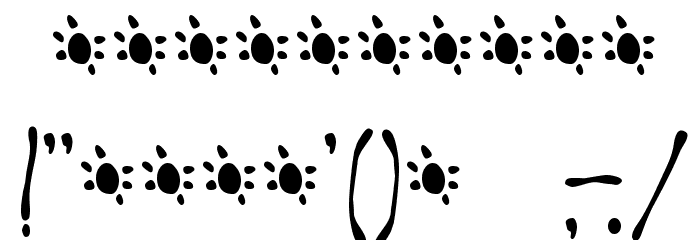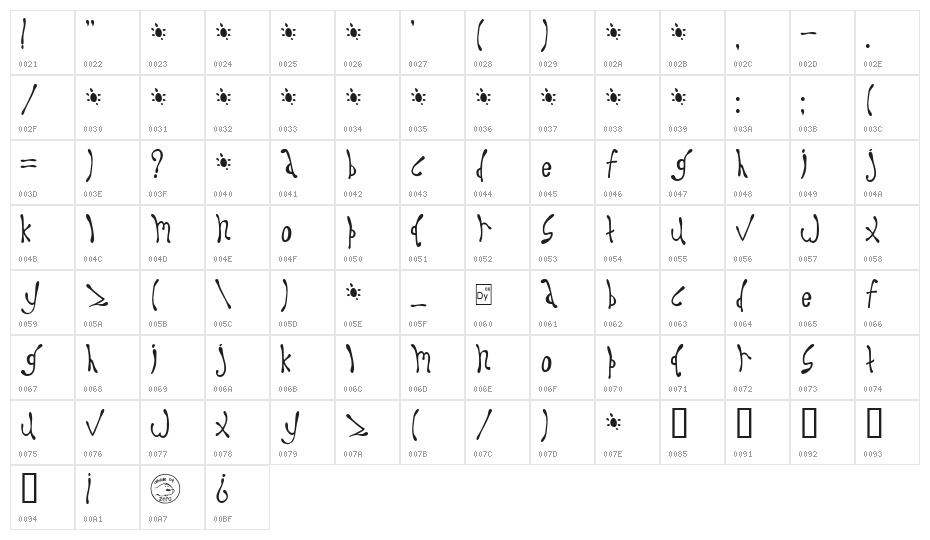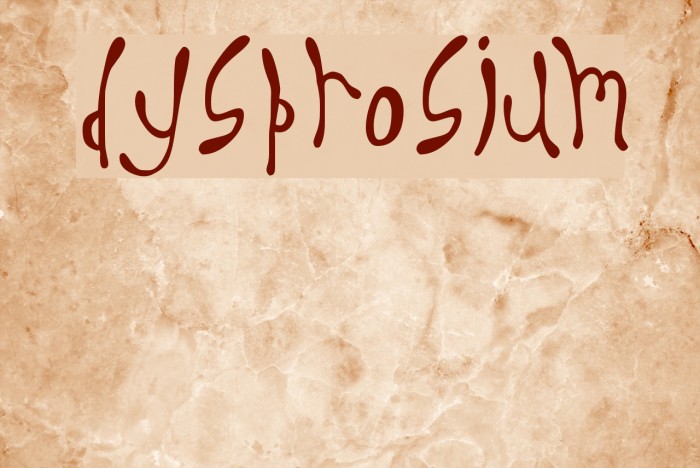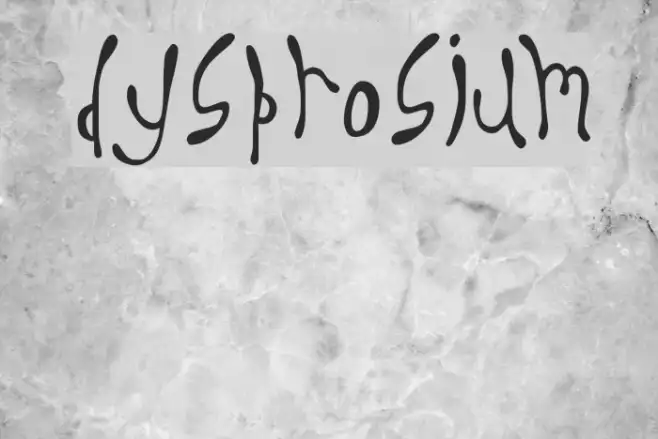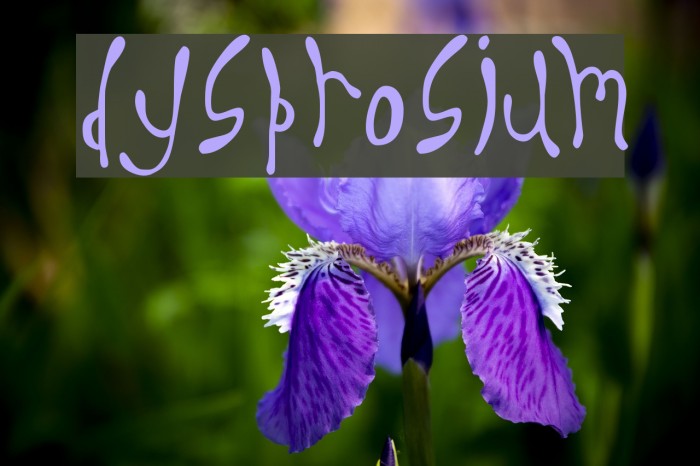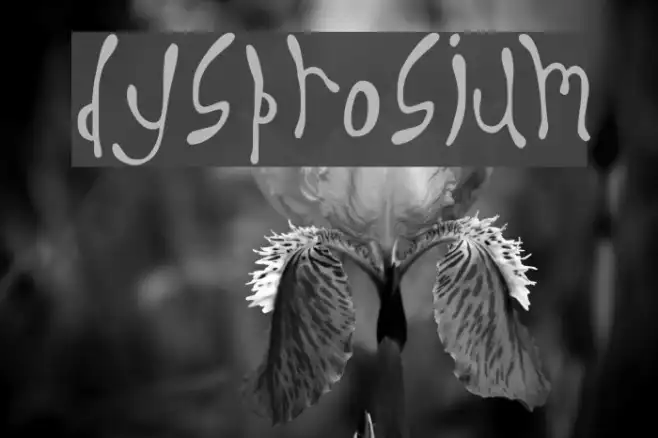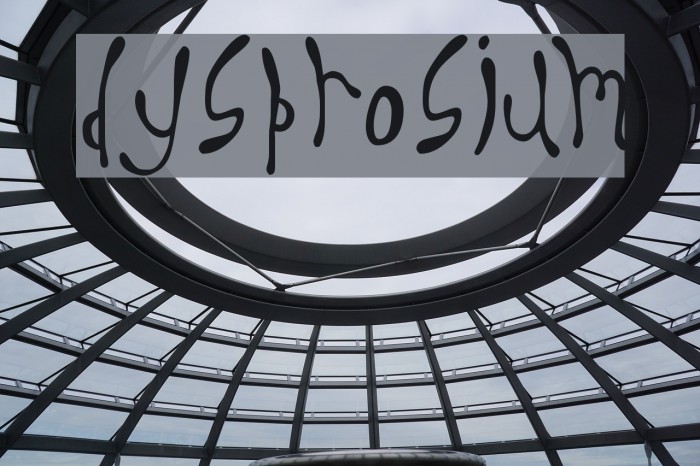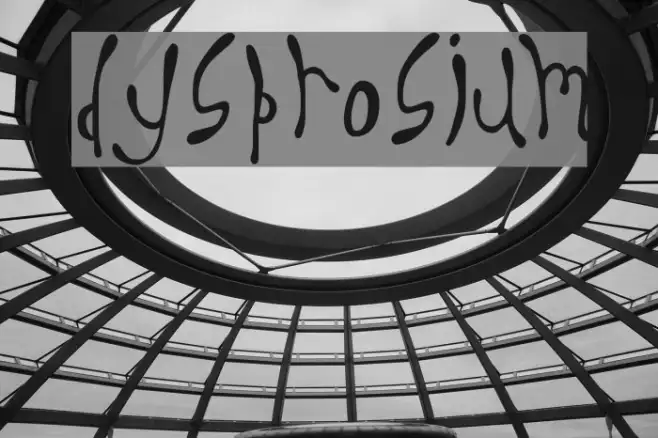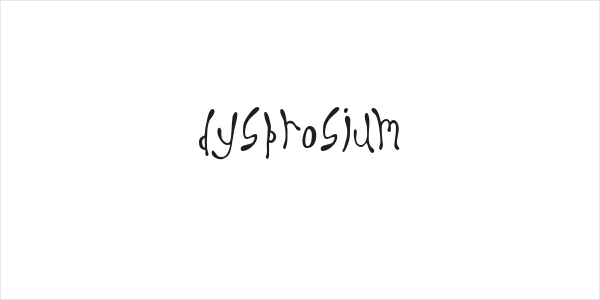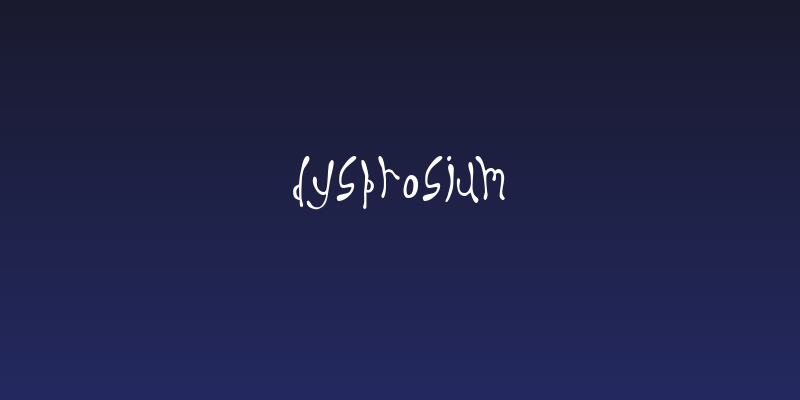
Dysprosium Font
Dysprosium Description
This font features a playful and whimsical design, characterized by its irregular, hand-drawn appearance. The letters have a unique, organic flow with varying stroke widths, giving it a lively and dynamic feel. The uppercase and lowercase letters maintain a consistent style, with elongated ascenders and descenders that add to its quirky charm. The numbers and special characters follow the same playful aesthetic, making it suitable for creative and informal projects. Its distinctive style makes it stand out, offering a fresh and artistic touch to any design.
| Proposed Projects | Ideal for children's books, creative posters, greeting cards, and playful branding. |